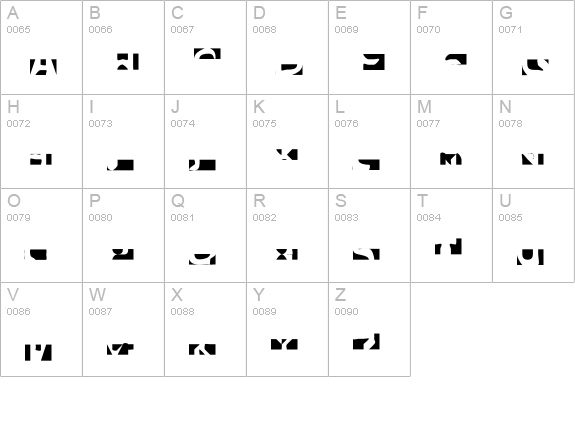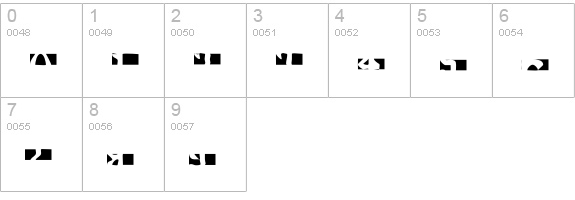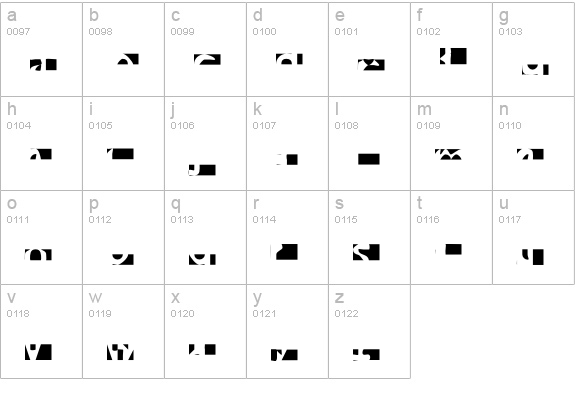
FPeep-ScrewedUp Font Details
Introducing FPeep-ScrewedUp font, a unique and edgy typeface designed to make a bold statement in your creative projects. With its playful and whimsical appearance, this font is sure to catch the eye and add a touch of fun to any design. The irregular and quirky letterforms of FPeep-ScrewedUp give your text a distinctive and individualistic look that stands out from the crowd. Best of all, FPeep-ScrewedUp font is completely free to download at FontsMarket.com, making it easily accessible to all designers and creatives looking to add a touch of personality to their work. Whether you're working on a poster, flyer, logo, or any other design project, FPeep-ScrewedUp font is the perfect choice to add a playful and unique touch to your typography. Download it today and let your creativity soar with this eye-catching and freely available font.